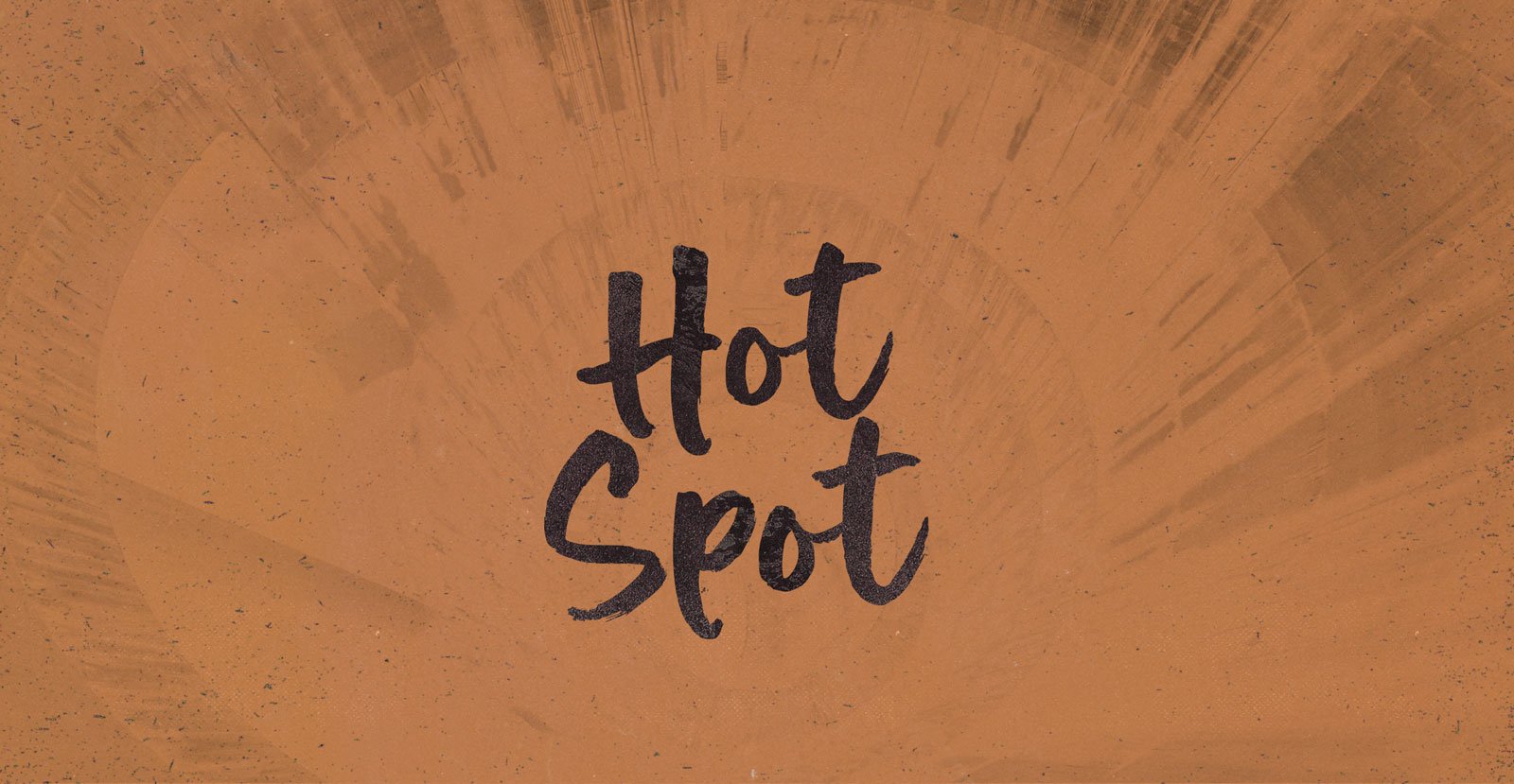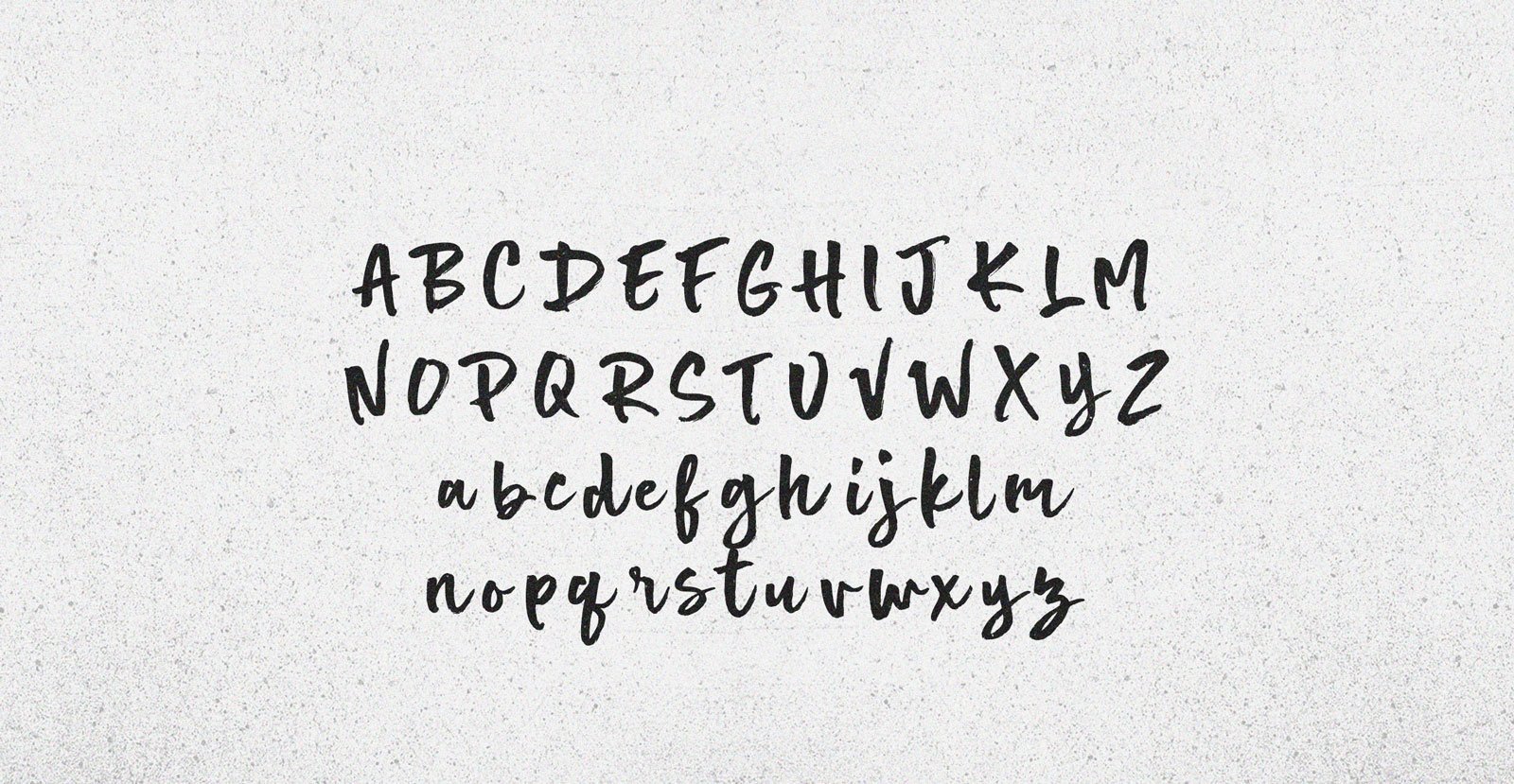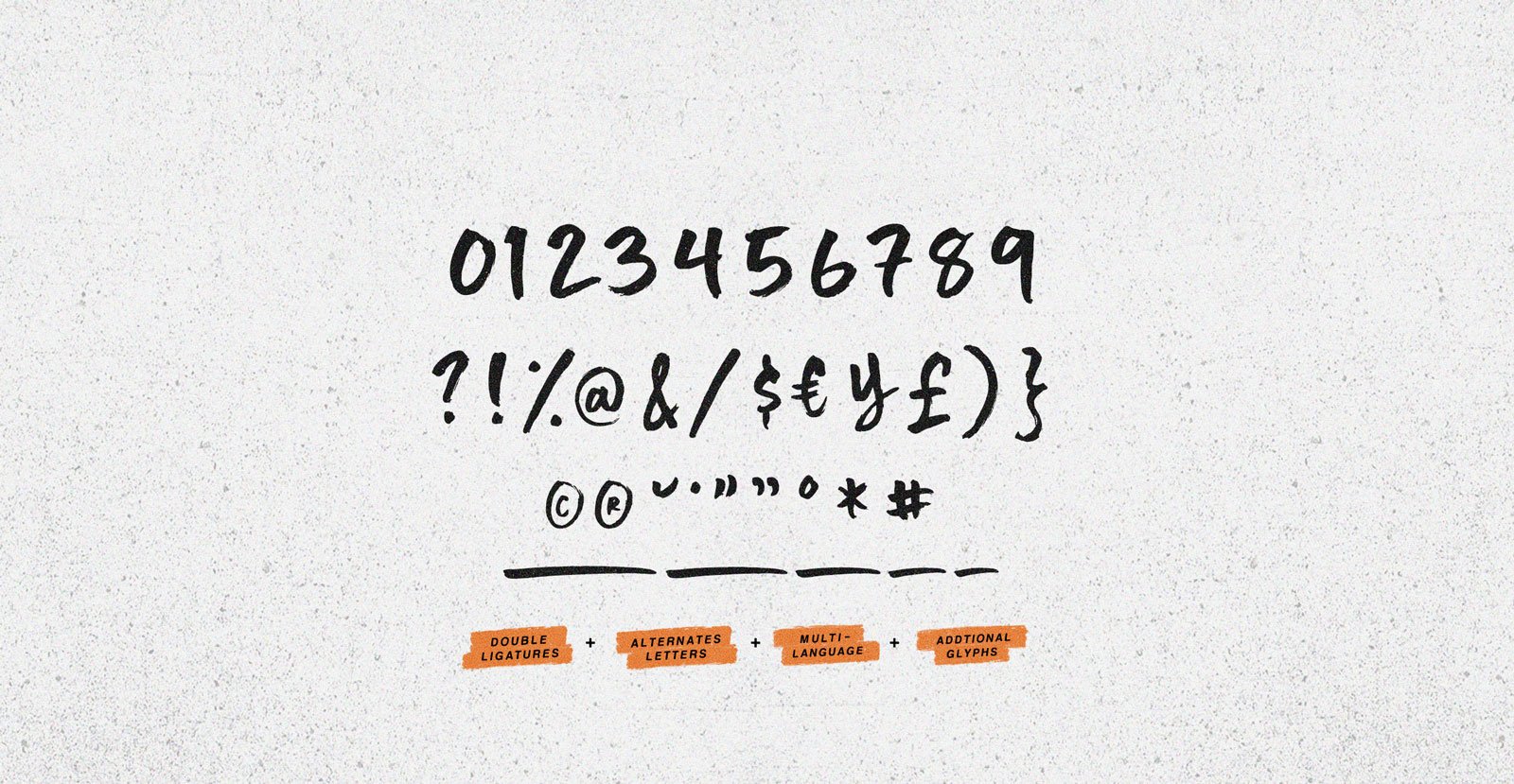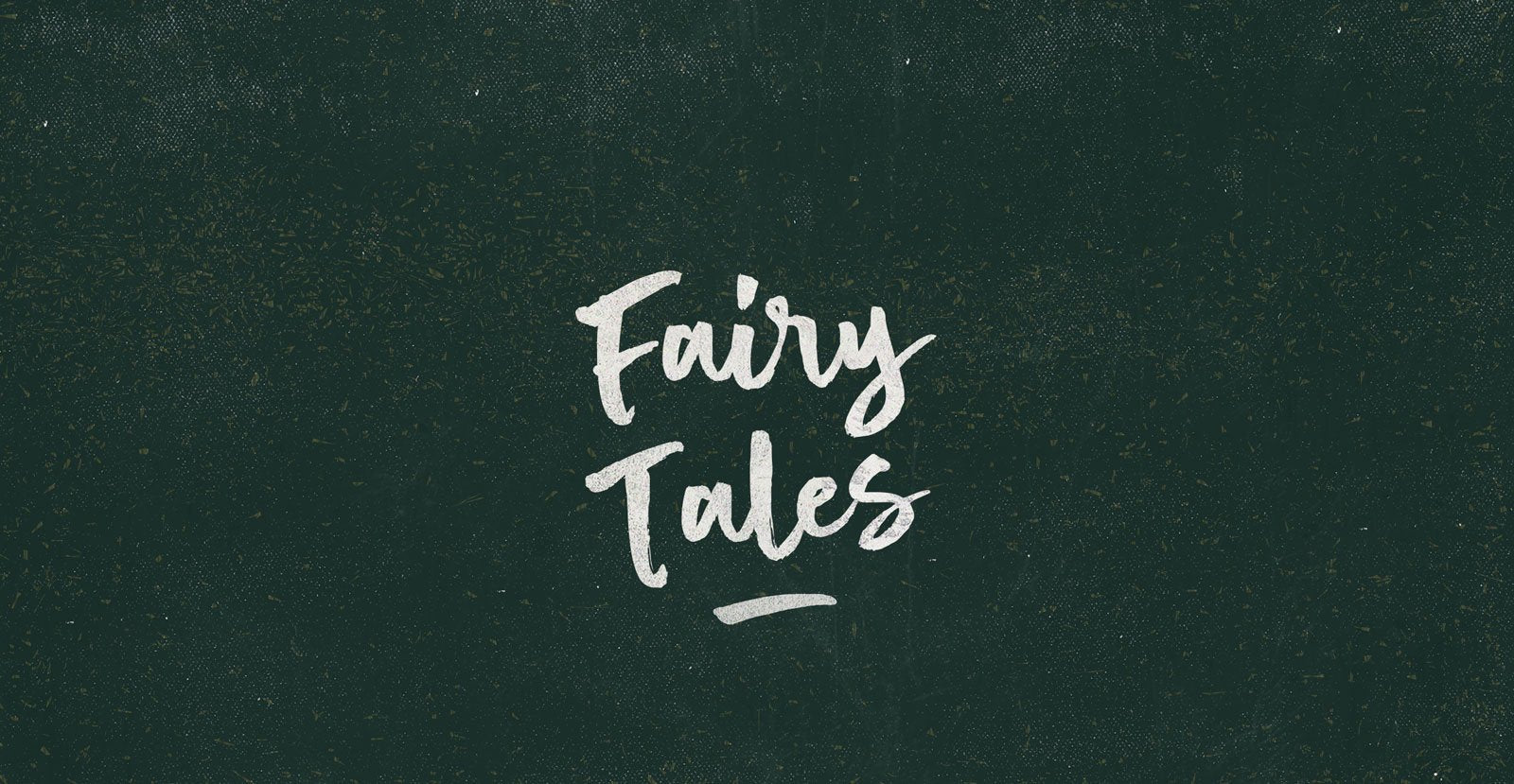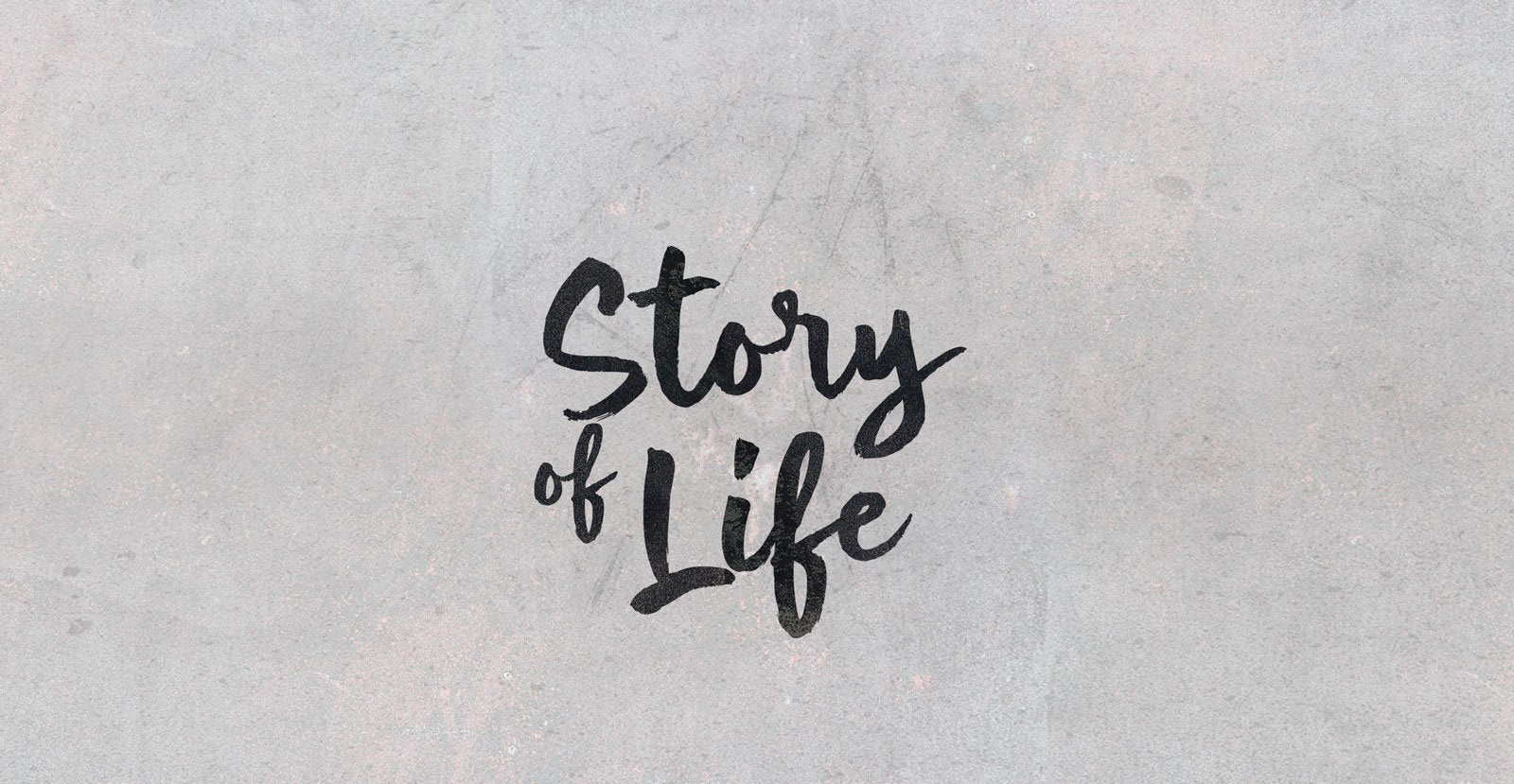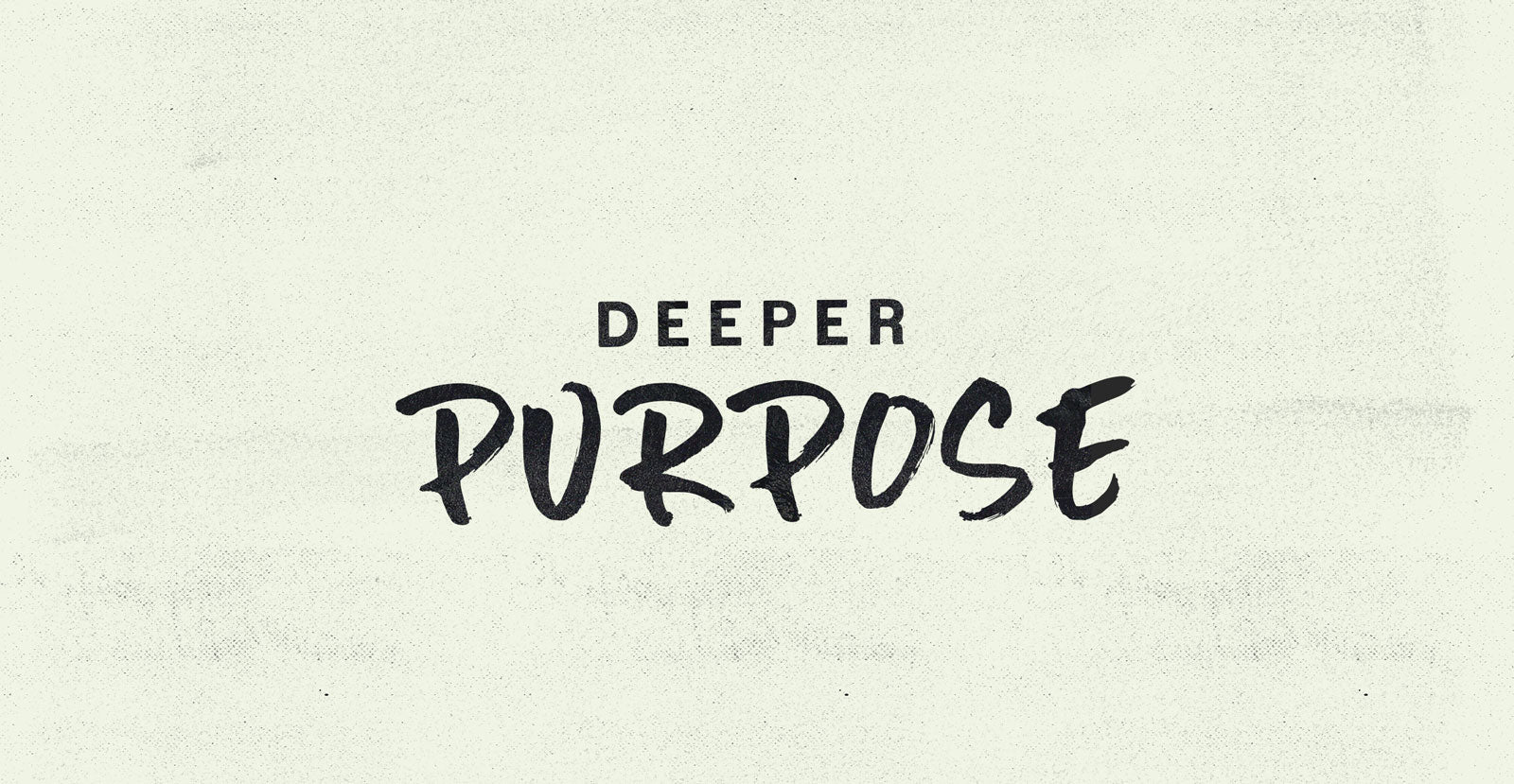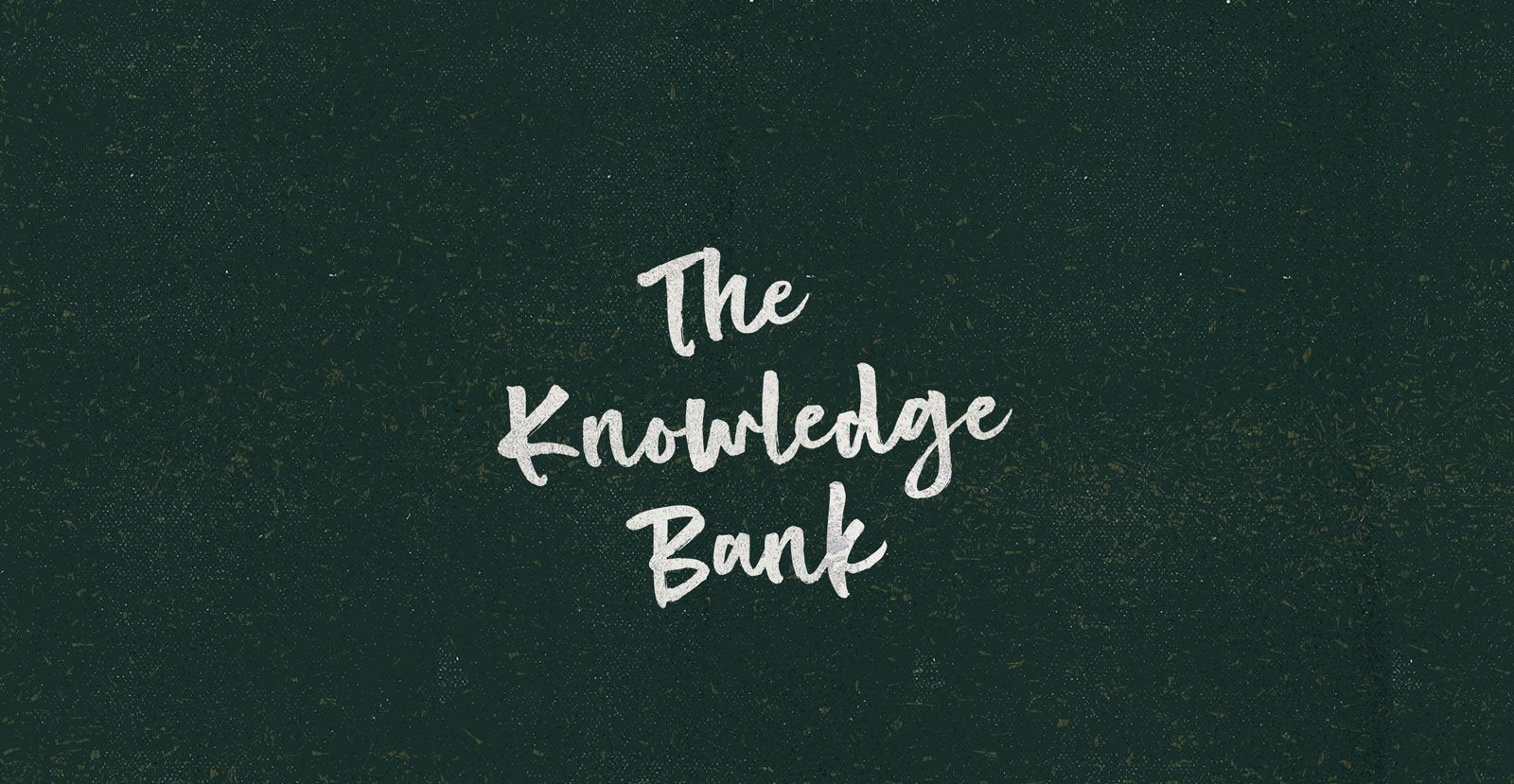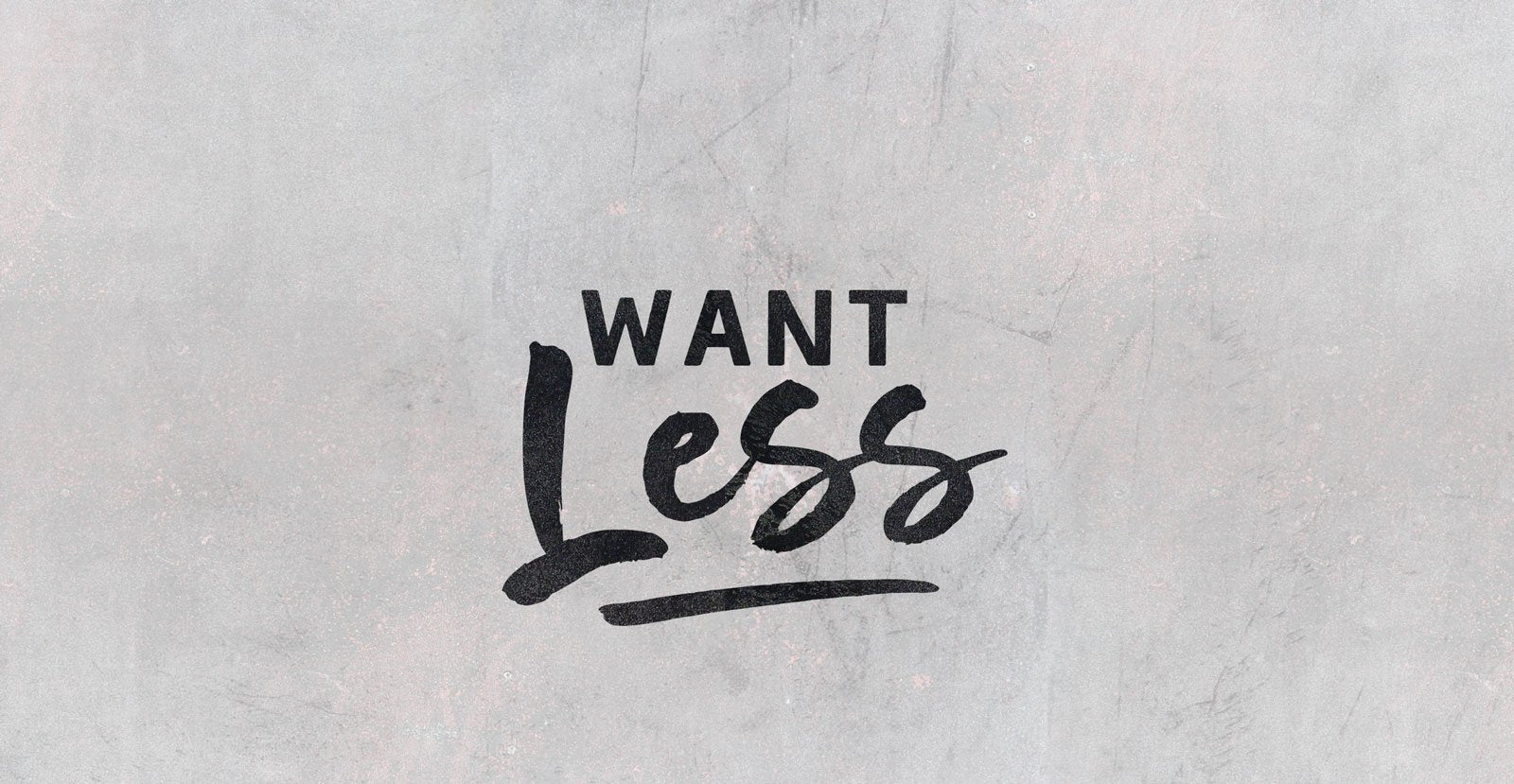
Hot Spot
The old Hot Spot. A video gambling hole née Café. Blue air, yellow walls, dark enough to not see either. Just candy coloured glow off the terminals: Jukeboxes silent and empty, rattling change around their guts like gastroliths.